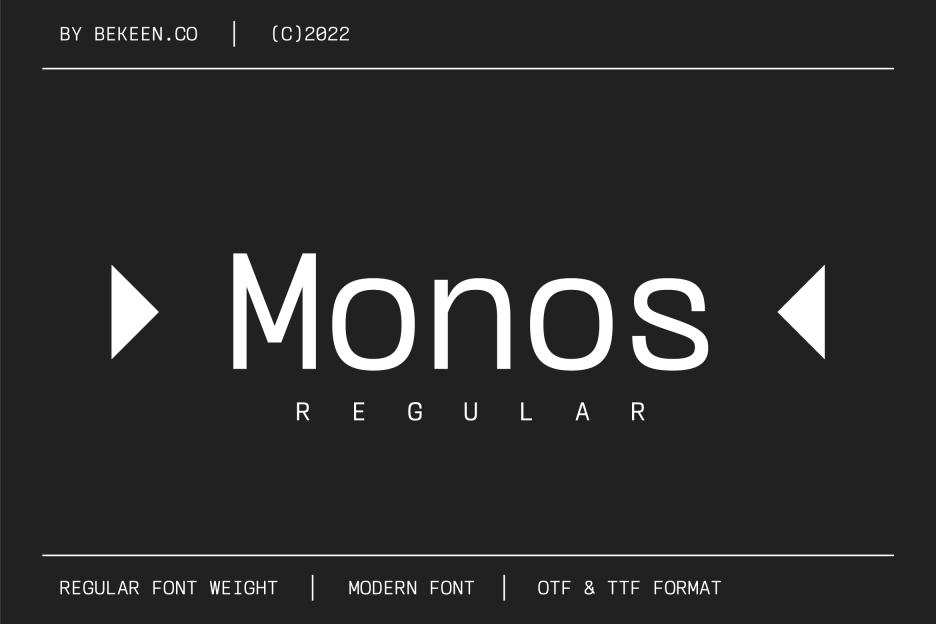
Monospace Font Tl838L
The Monospace Font Tl838L is a versatile typeface designed for clarity and precision in digital and print environments. Its clean lines and uniform spacing make it an excellent choice for coding, technical documentation, and any application where readability is paramount.
• Modern monospace design
• Multiple weights for varied applications
• Clear character distinctions for improved legibility
• Ideal for both screen and print use
• Character Set: Supports a wide range of languages and symbols
• Perfect for branding, logos, and user interfaces
• Utilize in coding environments for better readability
• Great for print materials like brochures and technical manuals